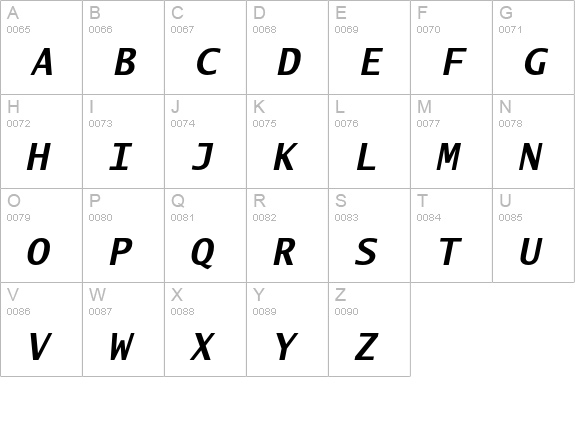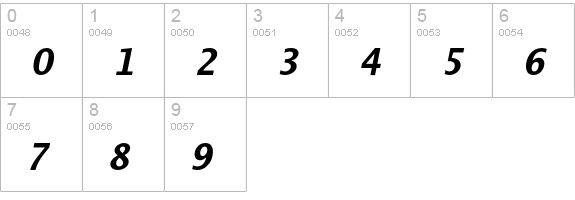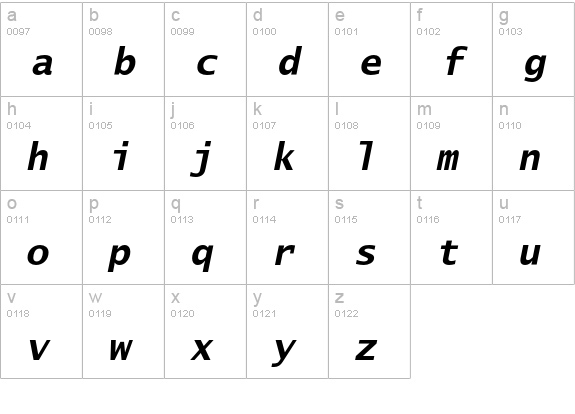
LucidaSansTypeEF-BoldObl Font Details
LucidaSansTypeEF-BoldObl font is a bold and stylish typeface that exudes confidence and modernity. Its oblique angles add a dynamic flair to any design, making it perfect for creating eye-catching headlines, posters, and branding materials. The strong and commanding presence of this font commands attention and leaves a lasting impression. The best part is that LucidaSansTypeEF-BoldObl font is available for free download at FontsMarket.com. This means you can easily access this premium quality font without any cost, making it a valuable addition to your design arsenal. Don't miss out on the opportunity to enhance your projects with the striking visuals that LucidaSansTypeEF-BoldObl font has to offer. Download it today and take your designs to the next level.